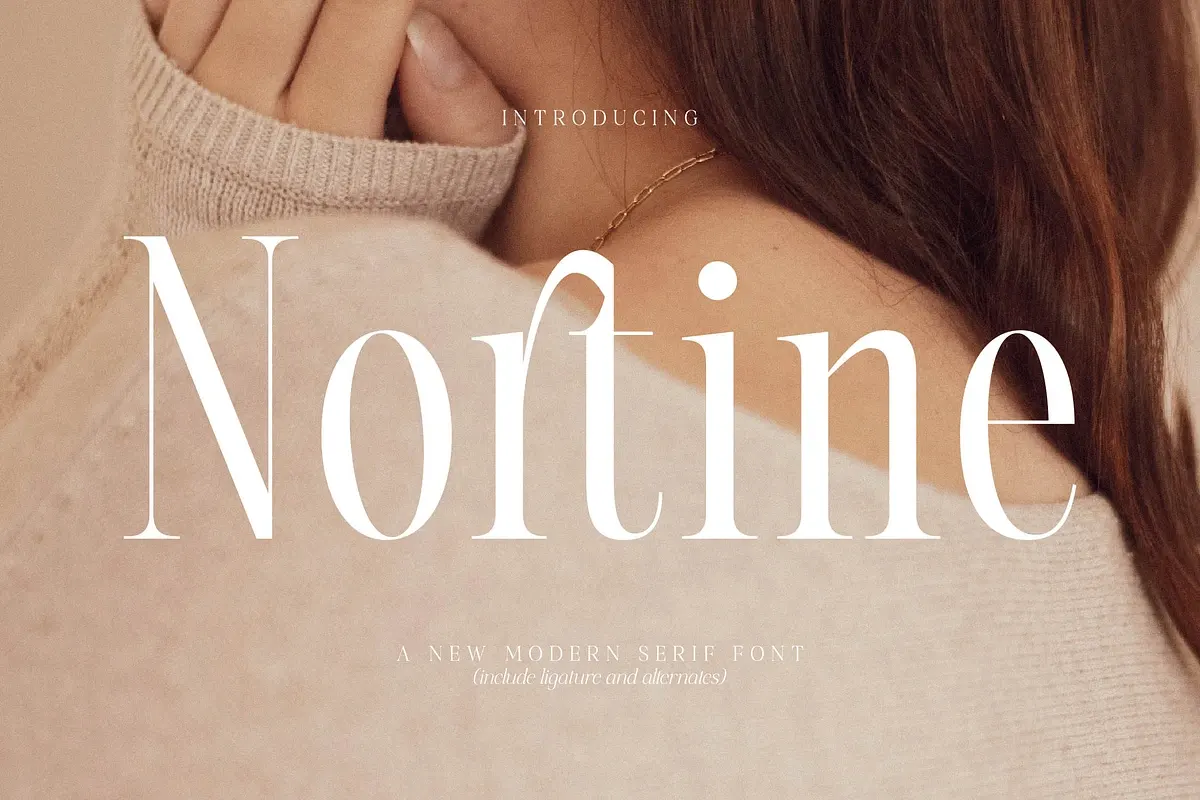
Nortine: A New Modern Serif Font Free Download
Nortine: A New Modern Serif Font Free Download is a sophisticated and contemporary serif typeface that combines timeless elegance with modern functionality. Perfect for editorial layouts, luxury branding, web design, packaging, and high-end marketing materials, Nortine brings style and readability to any project.
With its sharp contrast, clean lines, and refined serifs, Nortine offers versatility for both print and digital applications. It includes uppercase and lowercase letters, punctuation, multilingual support, and works seamlessly across both Mac and Windows platforms.